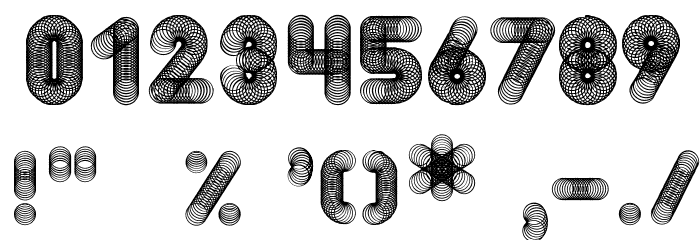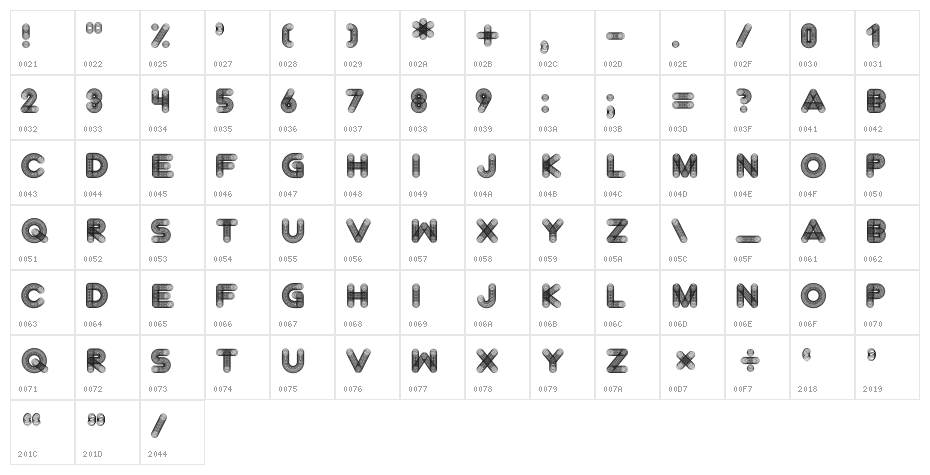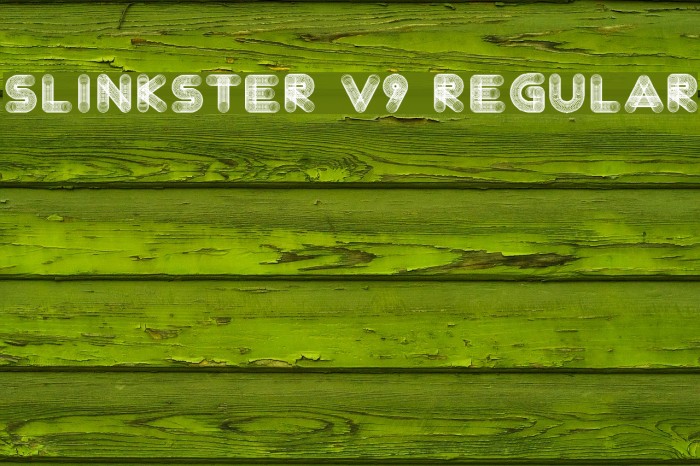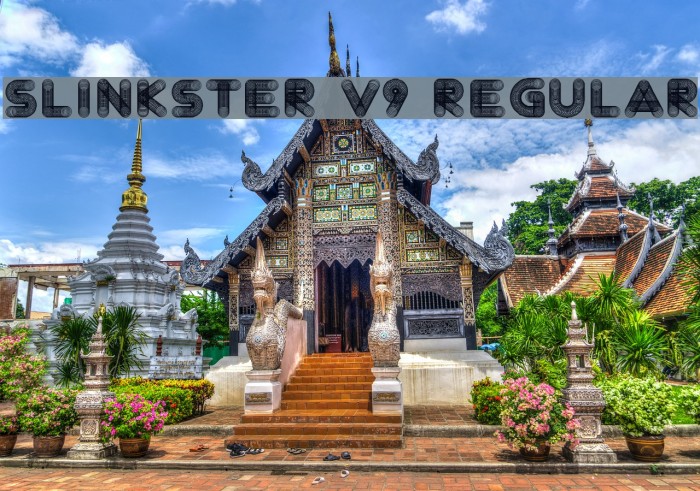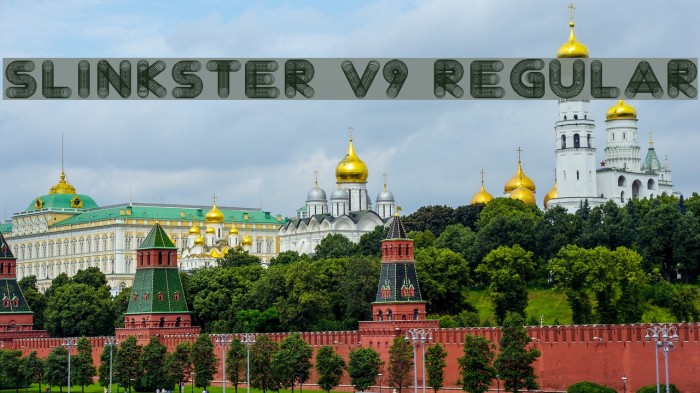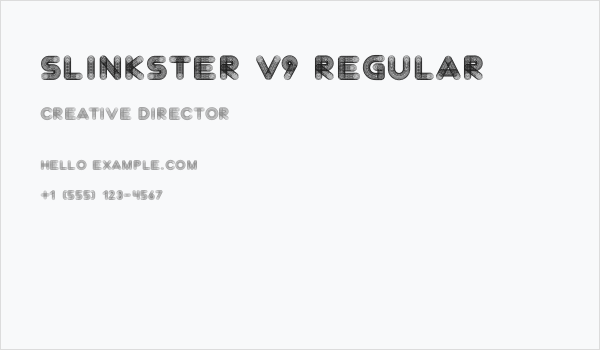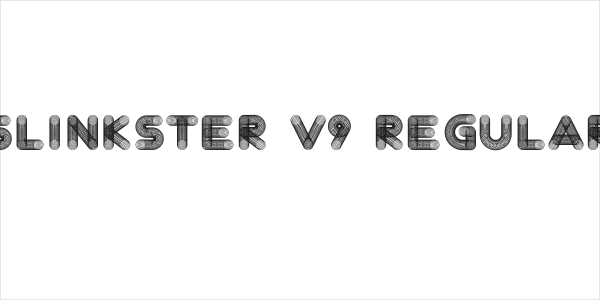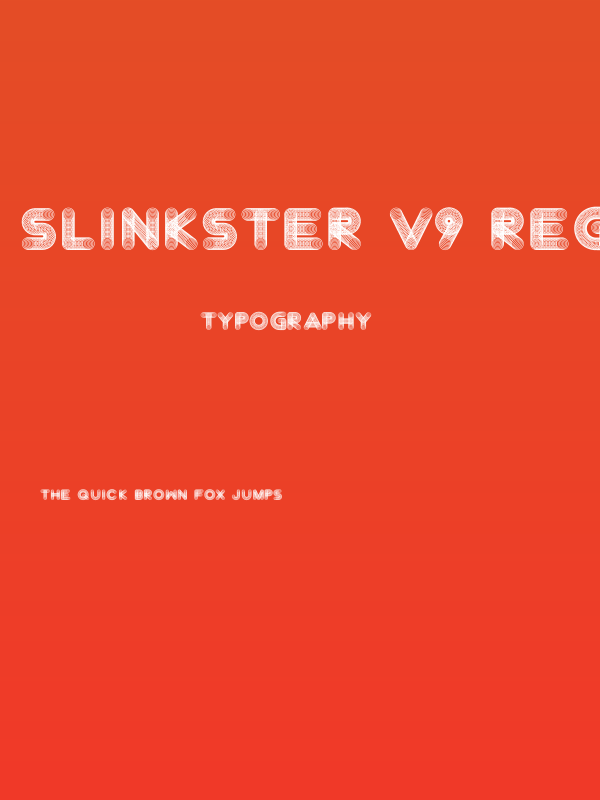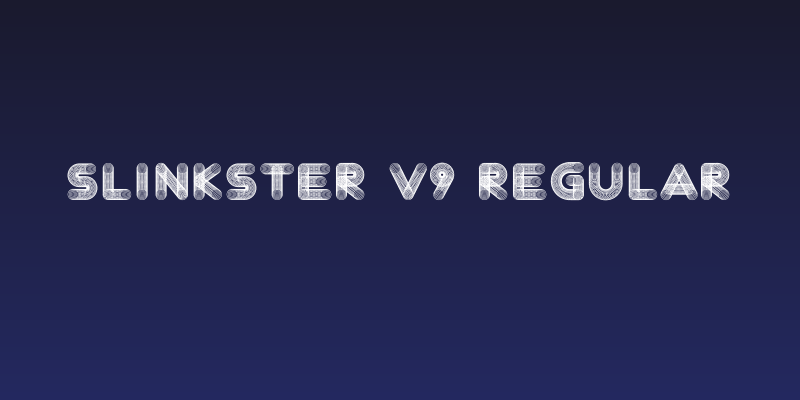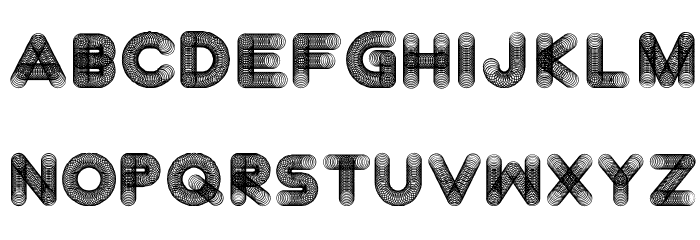
Slinkster v9 Regular Font
Slinkster v9 Regular Description
This font features a unique and intricate design, characterized by a series of concentric circles forming each character. The letters and numbers are bold and eye-catching, with a decorative and artistic flair. The overlapping circular patterns create a sense of depth and texture, making it stand out as a display font. The style is consistent across uppercase, lowercase, numbers, and special characters, maintaining a cohesive look. The font's playful and modern aesthetic makes it suitable for creative projects where a strong visual impact is desired.
| Proposed Projects | Ideal for posters, album covers, branding, and any project requiring a striking, artistic typeface. |